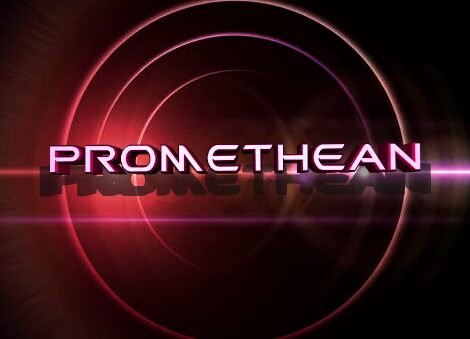
Promethean Bold Expanded Italic font by Iconian Fonts is a futuristic display typeface with sleek and modern aesthetic elements. It features geometric influences, streamlined appearances, and a technological vibe. Every aspect of this expanded font reflects its modernity with no exceptions; letters are stylish, pointy, angular, and occasionally rounded so they always form extravagant compositions.
This free display font will work best in titles or headlines; in posters, flyers, logotypes, typography quotes, ads for magazines or newspapers etc. Websites can even use it for buttons or menu item text while games can include it in logos and other promotional material.